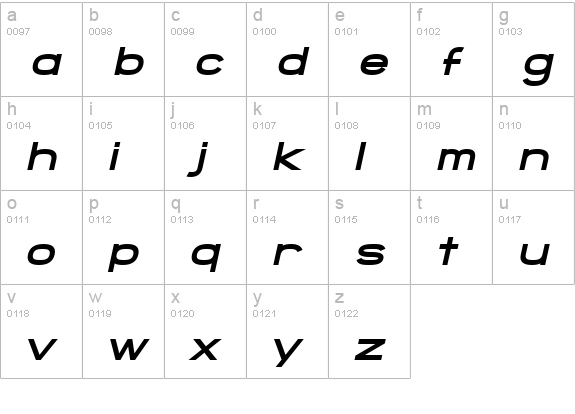
SF Grandezza Heavy Oblique Font Details
SF Grandezza Heavy Oblique is a heavy, high-impact, italic variant in the SF typeface family \xE2\x80\x94 well suited to high-impact headlines, posters, and display advertising.
SF Grandezza Heavy Oblique is a striking and bold typeface that exudes power and confidence. Its oblique slant adds a touch of dynamism, making it perfect for projects that require a strong visual impact. This font features thick, heavy strokes that command attention and make a statement. With its unique and distinct design, SF Grandezza Heavy Oblique is ideal for headlines, titles, logos, and any other application where you want to make a bold impression. It is highly legible, even at smaller sizes, ensuring that your message is easily conveyed. One of the best things about SF Grandezza Heavy Oblique is that it is free to download. Available at FontsMarket.com, this font allows you to add a touch of elegance and modernity to your designs at no cost. Whether you are a professional designer or a hobbyist, this font offers great value and versatility. The versatility of SF Grandezza Heavy Oblique is further enhanced by its extensive character set, which includes uppercase and lowercase letters, numbers, punctuation marks, and special characters. This ensures that you have all the tools you need to create visually stunning and impactful designs. Whether you are working on a branding project, a poster, a website, or any other creative endeavor, SF Grandezza Heavy Oblique is a font that will elevate your design to the next level. Its bold and commanding presence will captivate your audience and leave a lasting impression. So why wait? Download SF Grandezza Heavy Oblique for free at FontsMarket.com and unlock the potential to create eye-catching and memorable designs. With this font, you have the freedom to express your creativity and make a lasting impact.